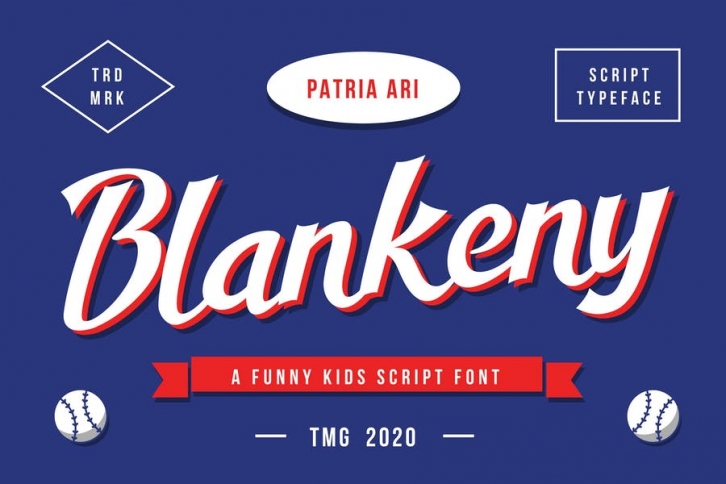
Blankeny Fun Kids Script Font
Blankeny is a fun kids script font that is perfect for your up coming projects, such as book/cover title, logo branding, card invitation, stationery design, blog design, special events, editorial design, modern advertising design, art quote, home decor, and any more.